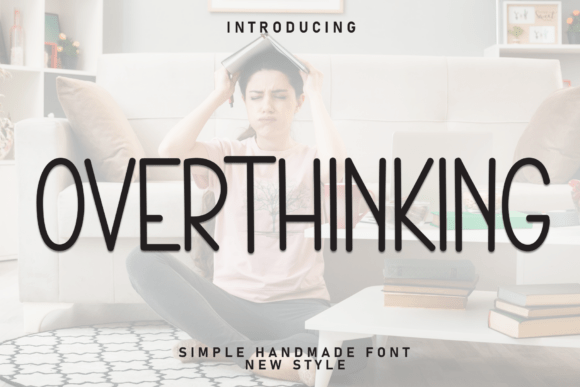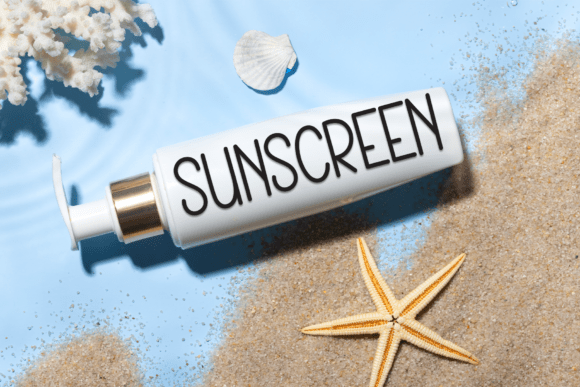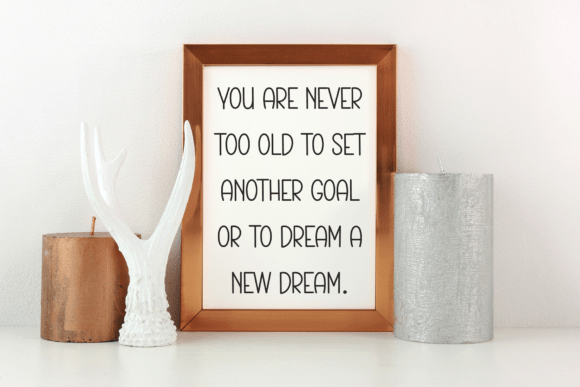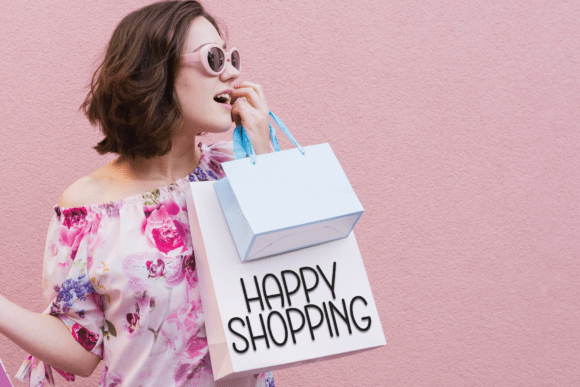
Overthinking Font
About the Overthinking Font
Add a touch of class to your work with the Overthinking Font, a truly exceptional typeface. A charming handmade display font that brings a touch of warmth and personality to every project. With organic strokes and an imperfectly perfect look, this font captures the essence of handcrafted design. Perfect for greeting cards, packaging, DIY projects, logos, and anything that needs a creative and authentic flair. Let your designs stand out with this fun and friendly typeface!
Overthinking Font’s handcrafted charm shines brightest in headlines, short text blocks, and logos where its unique personality can take center stage. It’s ideal for branding projects seeking a friendly, approachable feel, and works well on packaging for artisanal or handmade products. However, its organic nature makes it less suitable for body text or UI elements requiring high readability.
Pair it with a clean sans-serif like Montserrat for a balanced contrast, or a classic serif like Garamond for a touch of timeless elegance. For a more playful feel, consider pairing it with a script font such as Allura. The font’s overall personality is best described as friendly and approachable, with a touch of quirky imperfection.
Avoid using Overthinking Font in situations demanding high legibility over extended text lengths. Its whimsical nature is best suited to projects that prioritize visual impact and brand storytelling over large amounts of dense textual information.
Overthinking Font Usage Examples
Overthinking Font Example